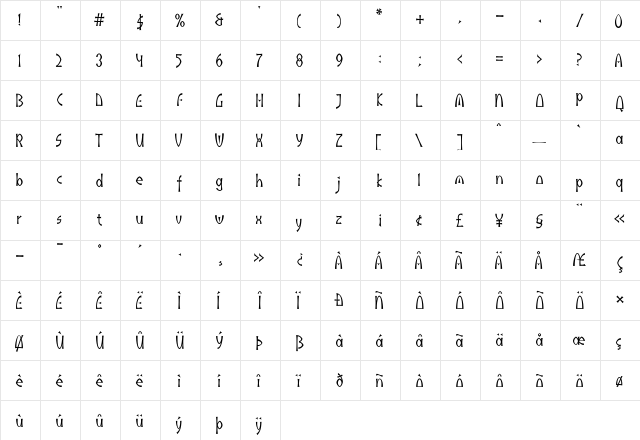
IndusLL Regular
Design Context for IndusLL Typeface
IndusLL is a composed and adaptable typeface that performs quietly and consistently across a wide range of design contexts.